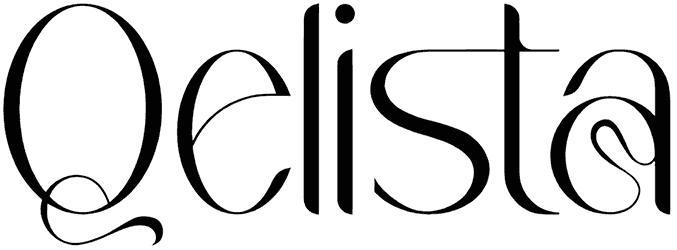
Qelista Font
If you want to wow other people with a basic luxury font, Qelista is the way to go. This lovely serif font comes in two styles, either of which would be a great addition to any of your digital creations.